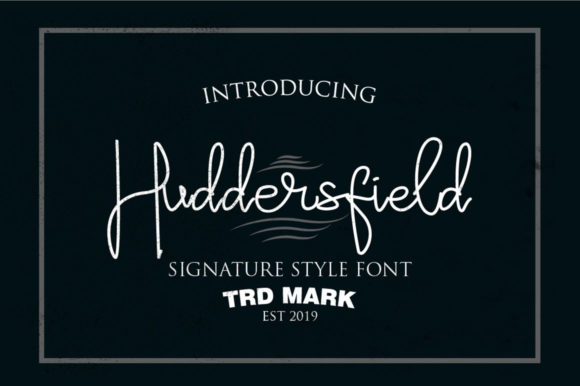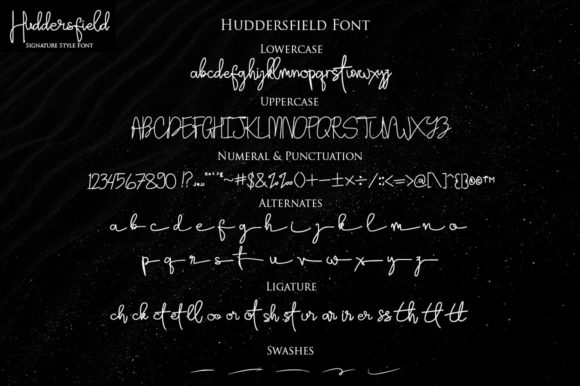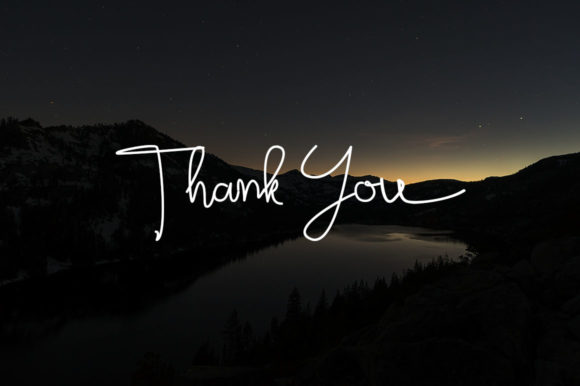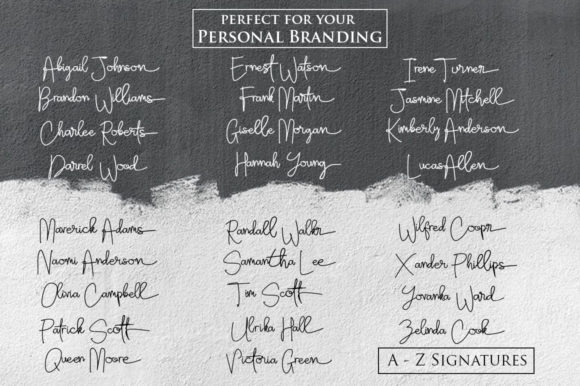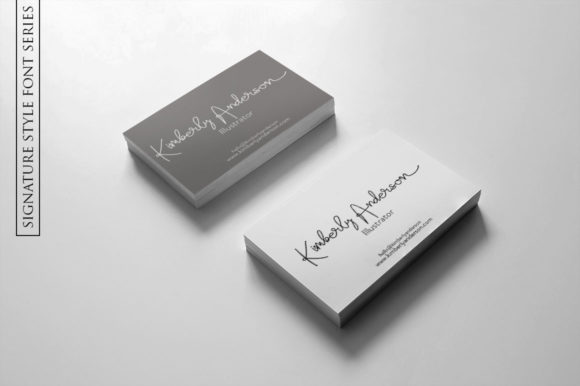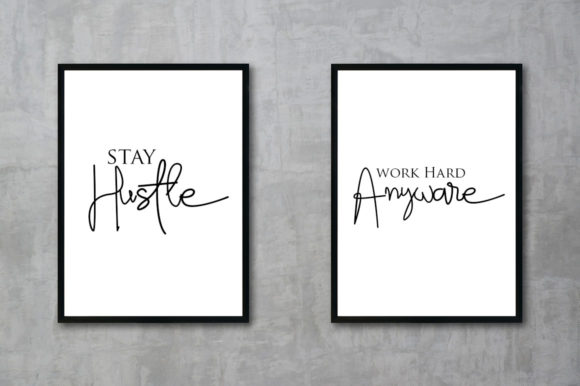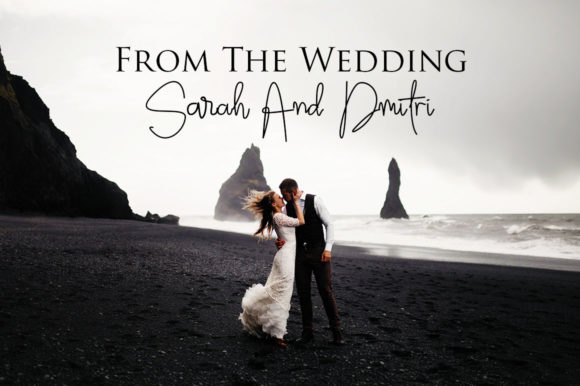
Huddersfield Font
About Huddersfield Font
Huddersfield is a stylish and bold handwritten font with amazing letters. This beautiful script font will add a personal touch to your latest art project with its elegant, classy, and modern look that is both contemporary and timeless. It will turn any design idea into a true stand out!